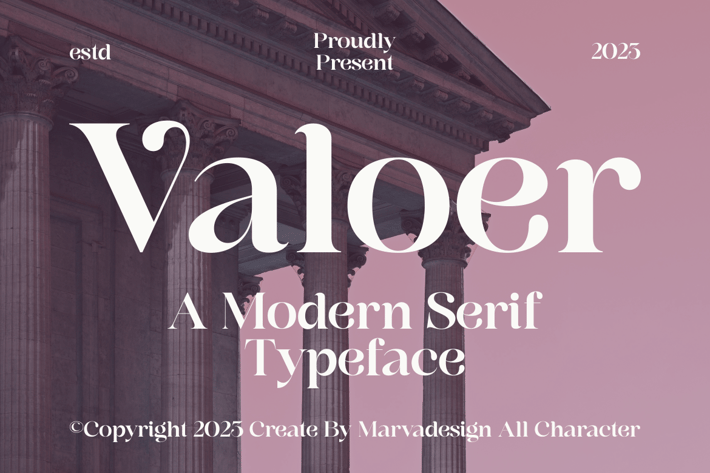
Valoer - A Modern Serif Font
Introducing our new product Valoer Font A Modern Serif Font
Valoer Font - A Modern Serif Font authentic display font. The font is suitable for any branding project like logo, Template Design, Product and many more. outstanding in a wide range of contexts.
* Alternate
Valoer Font - A Modern Serif Font authentic display font. The font is suitable for any branding project like logo, Template Design, Product and many more. outstanding in a wide range of contexts.
* Alternate